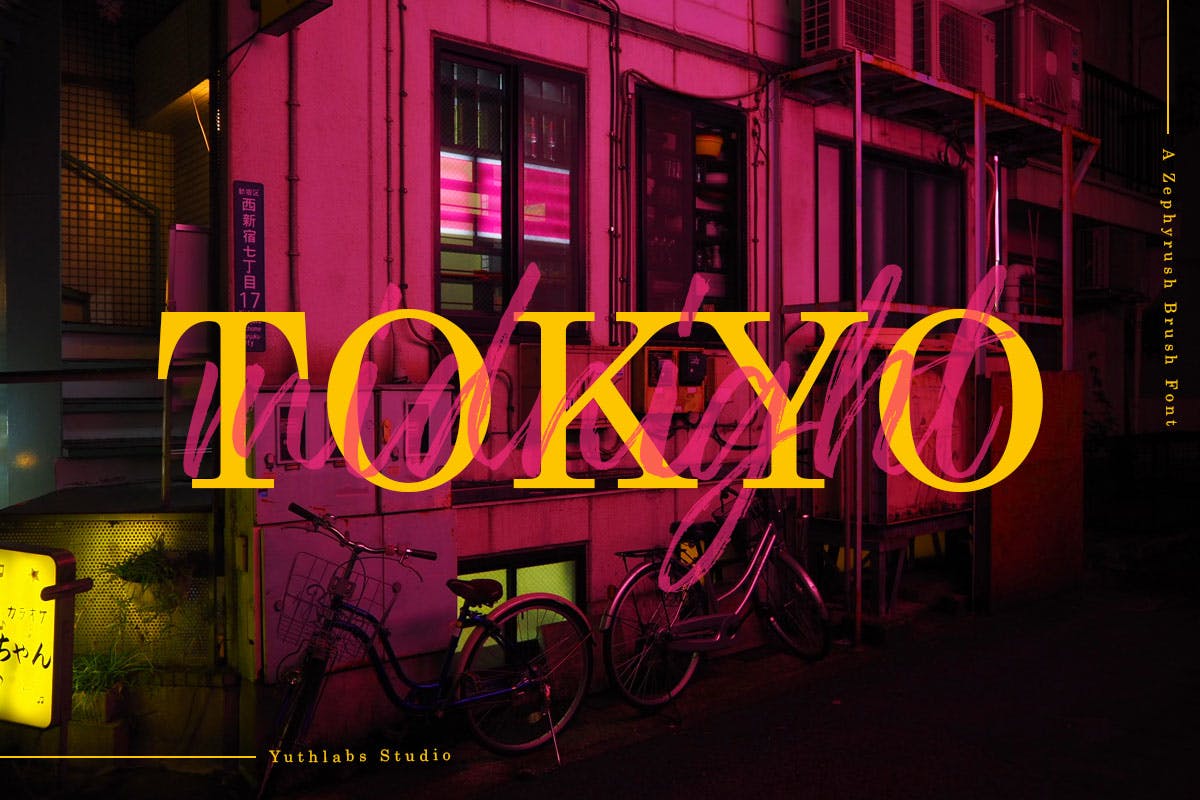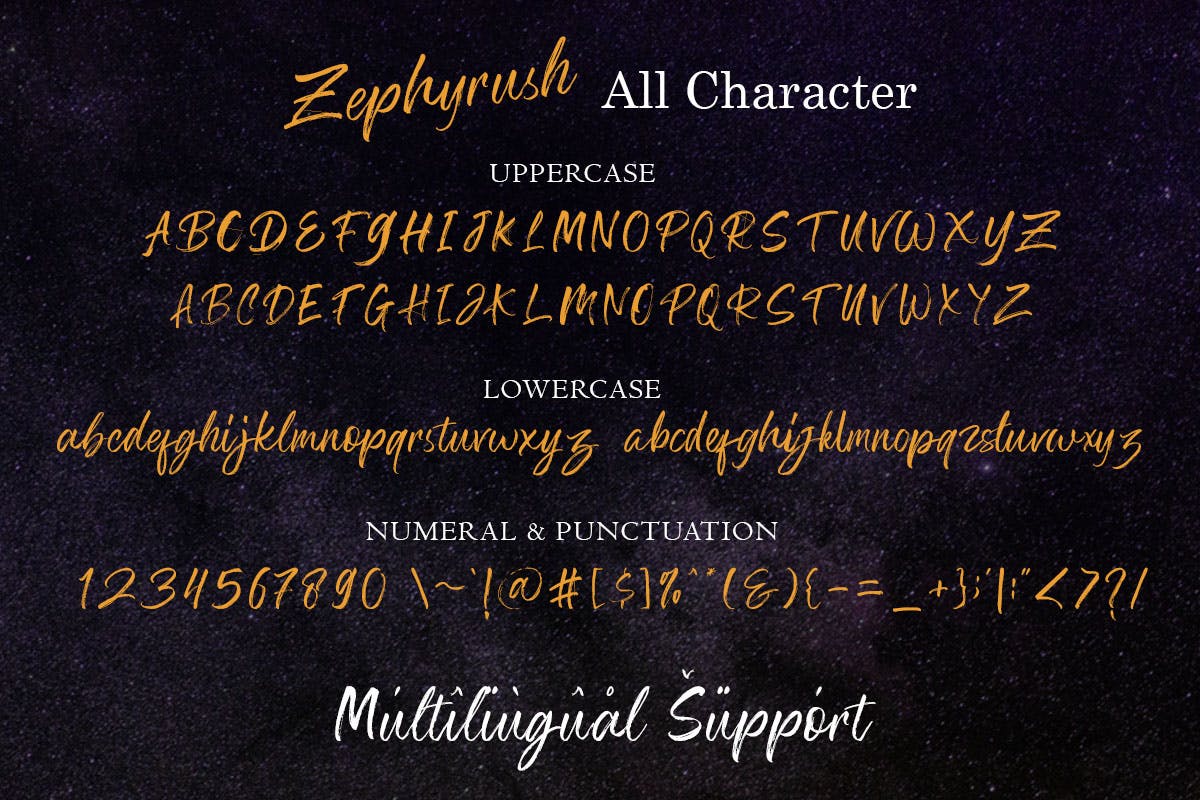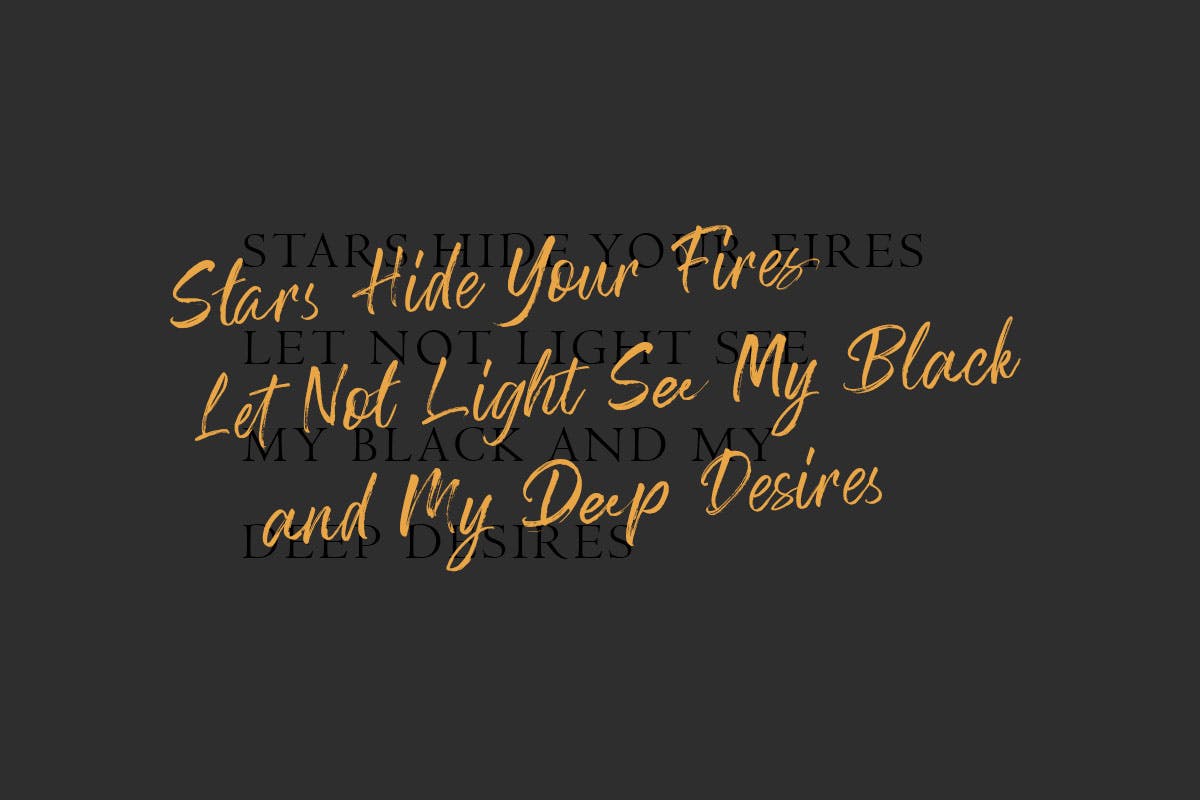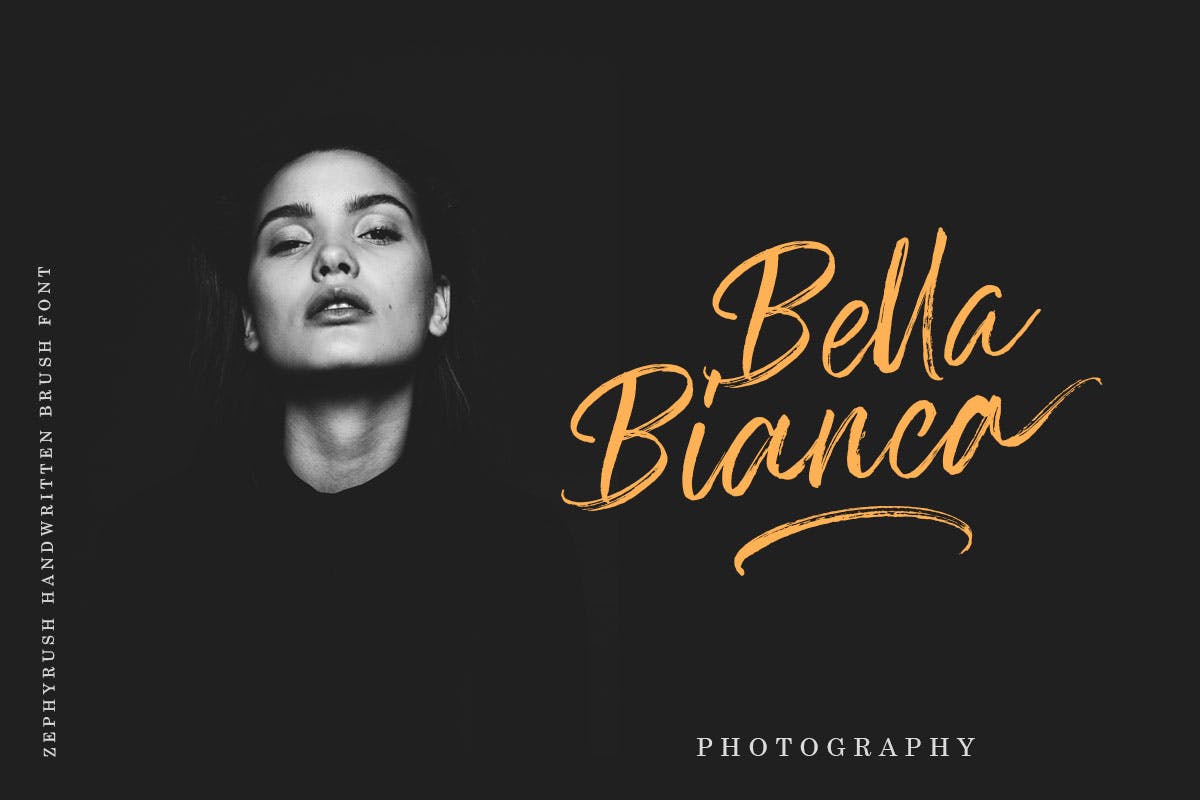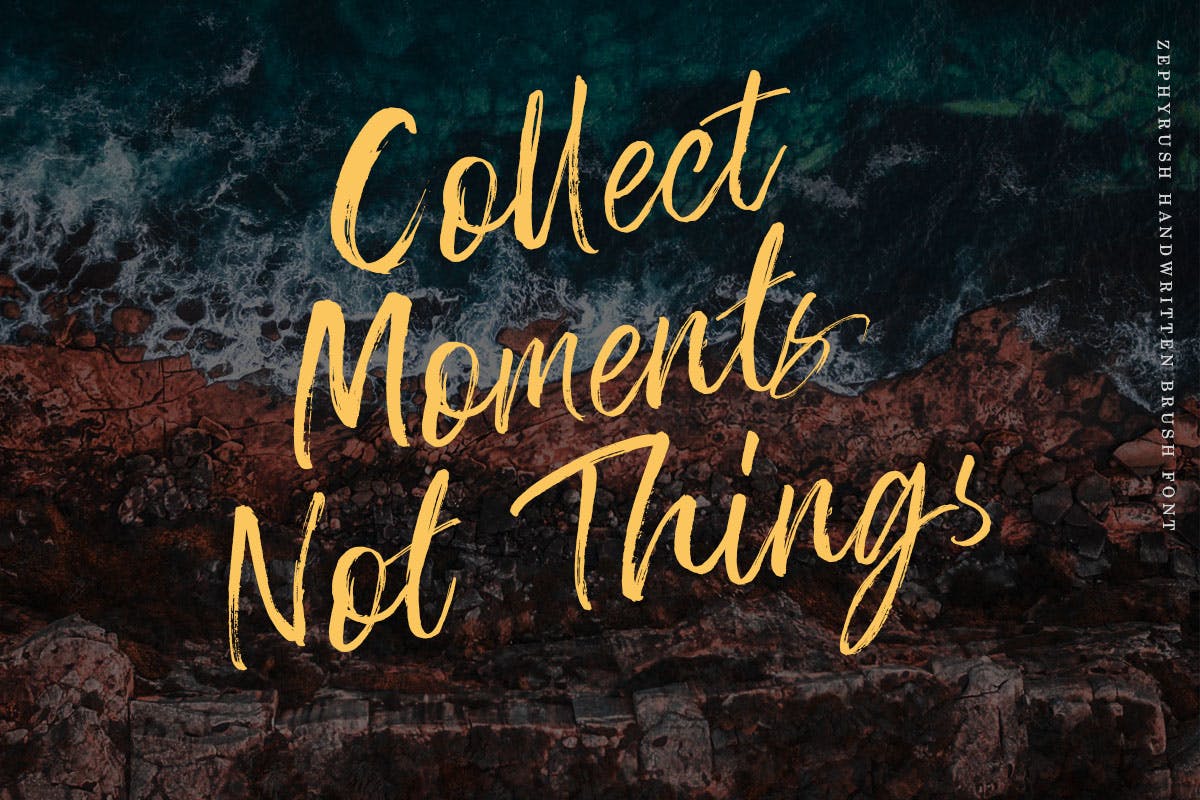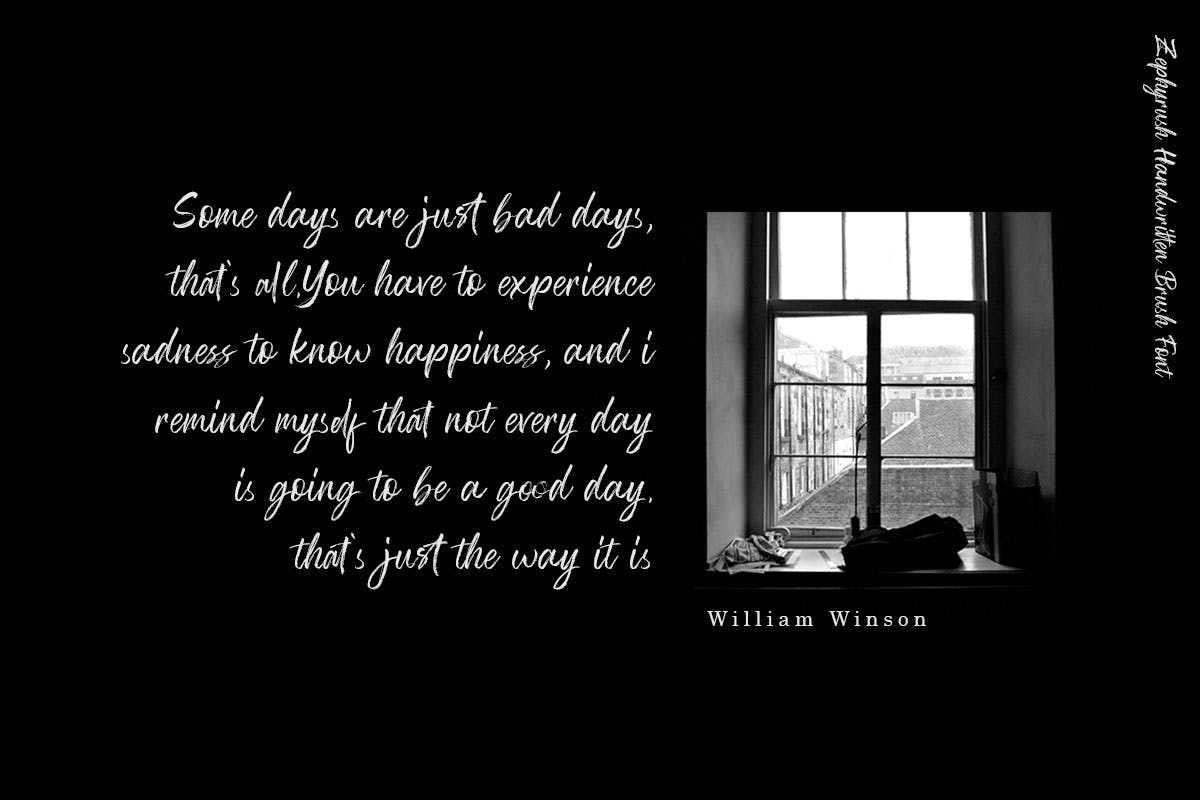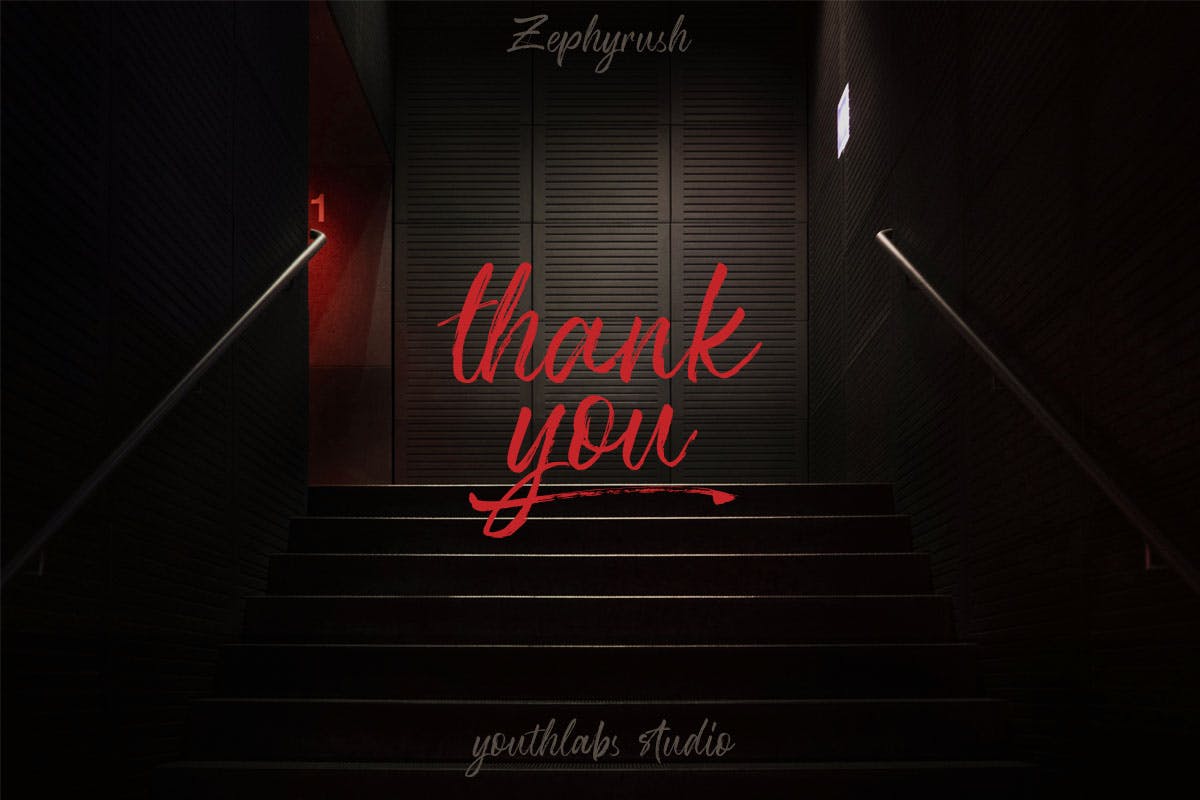
Free Zephyrush Handwritten Brush Font
Free Zephyrush Handwritten Brush Font is a trial version of an elegant script fonts. This font is made from handwriting calligraphy completely with some beautiful ligatures. This free font matches the font applies in some designs such as the logotype, magazine, website or blog headlines, packaging, branding, quotes, invitation cards, greeting cards, business cards, and more.